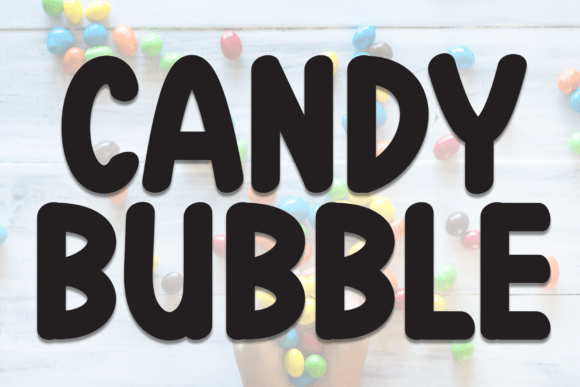
The Sweet Charm of Candy Bubble Font: A Designer’s Delight
I’ll never forget the time I was working on a wedding invitation project, and my client asked for a font that would add a touch of whimsy and playfulness to the design. I scoured the internet, tried out countless fonts, but nothing seemed quite right. That was until I stumbled upon the delightful Candy Bubble Font. ✨ It was love at first sight! The charming, handwritten aesthetic and sweet, bubbly texture instantly captured the essence of the wedding’s playful and romantic theme.
An Honest Review: What I Love and a Few Quirks
The Good Stuff ✅
- ✨ The font’s unique blend of sweetness and friendliness makes it perfect for a variety of design projects, from wedding invitations to playful greeting cards.
- ✅ The handwritten aesthetic gives the font a personal, homemade feel that’s hard to replicate with more formal fonts.
- ✅ The font’s legibility and clarity make it easy to read, even at smaller sizes.
- ⚠️ While the font is incredibly versatile, it may not be the best choice for more formal or professional designs, such as business logos or corporate branding.
- ⚠️ Some users may find the font’s bubbly texture a bit distracting or overwhelming, especially when used in large blocks of text.
- Experiment with the font’s OpenType features, such as stylistic alternates and glyphs, to add more visual interest to your design.
The Story Behind Candy Bubble Font
Candy Bubble Font was designed by a team of creatives who wanted to capture the essence of childhood wonder and playfulness. Inspired by vintage candy advertisements and childhood memories of bubblegum and sweets, the font was crafted to bring a smile to the user’s face. With its unique blend of sweetness and friendliness, Candy Bubble Font is sure to delight designers and their clients alike.
Q: Is Candy Bubble Font suitable for body text?
A: While Candy Bubble Font is legible, it’s best suited for display text or short paragraphs. For longer blocks of text, a more traditional font may be more suitable.